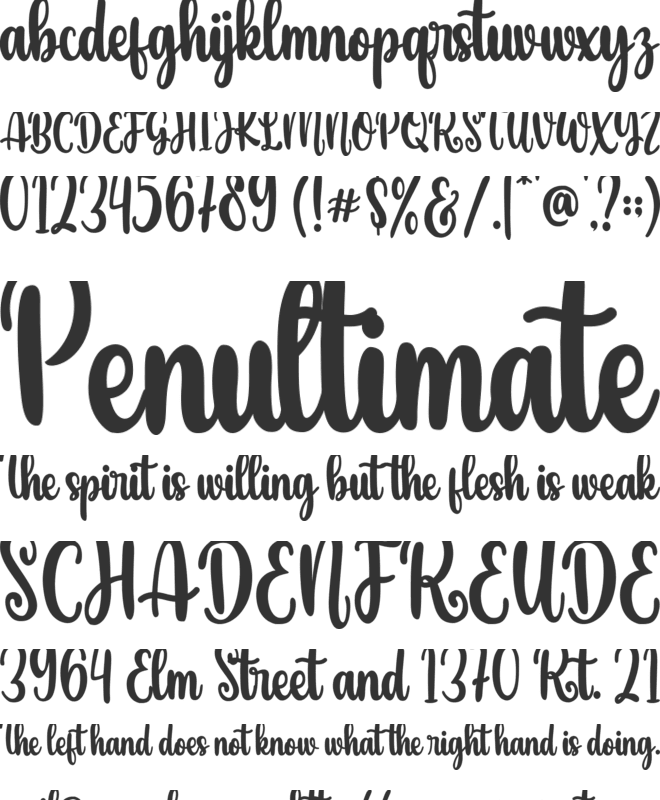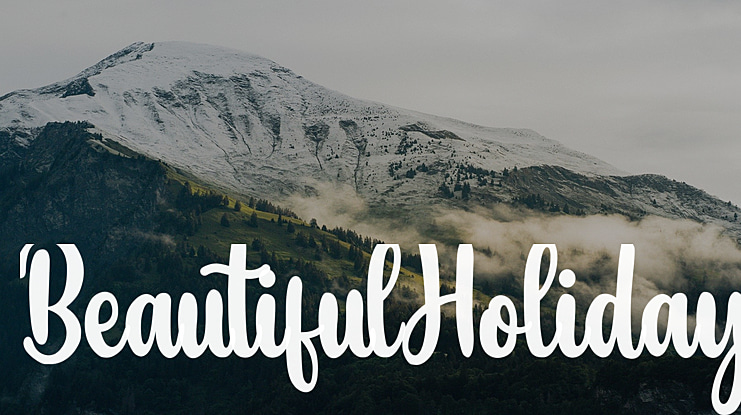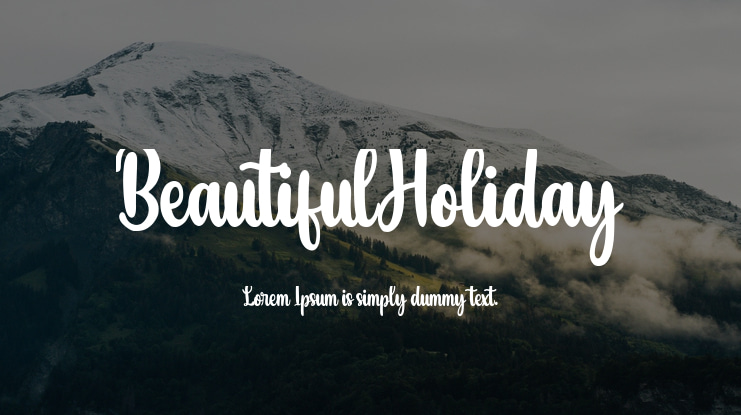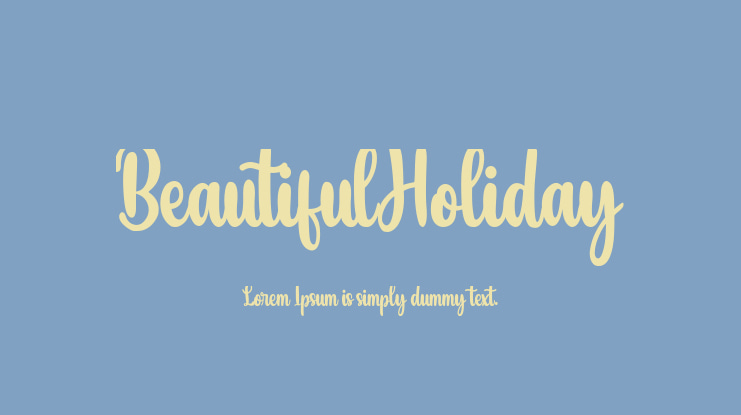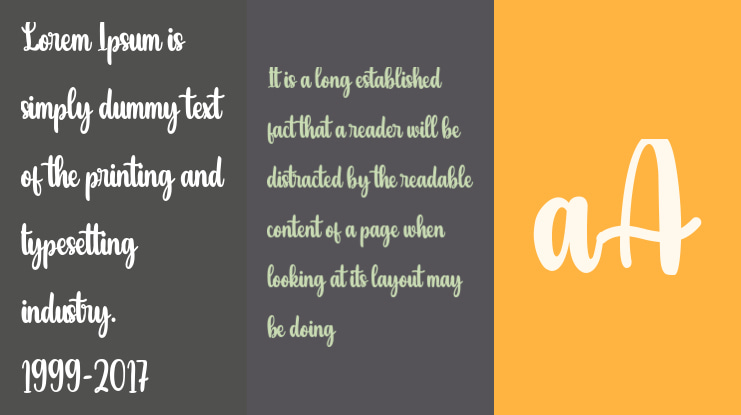
BeautifulHoliday Font
Beautiful Holiday is a amazing script font.
It is one of the modern calligraphy script fonts that comes with very beautiful character changes.
Beautiful Holiday is interesting because this font is pleasing to the eye, clean, feminine, sensual, glamorous, simple and very easy to read, because there are many fancy letter connections. It has beautiful and well balanced characters and as a result, it matches a wide pool of designs.
Fall in love with its incredibly versatile style and use it to create spectacular designs!